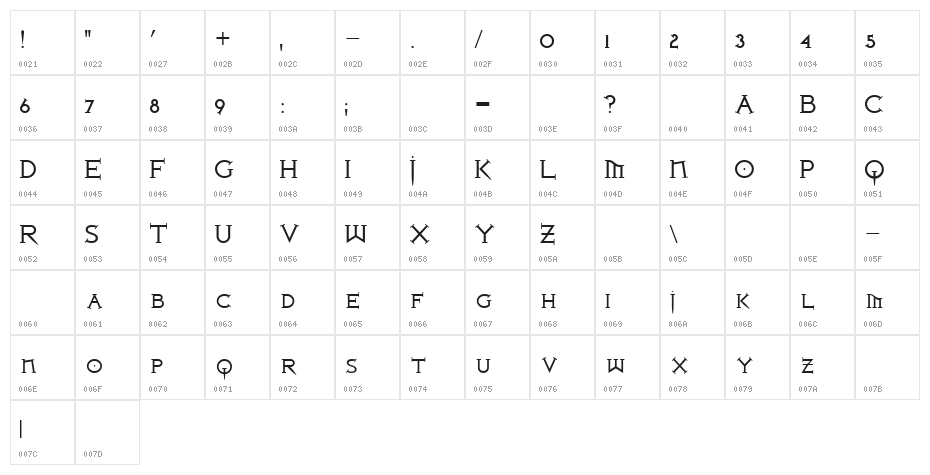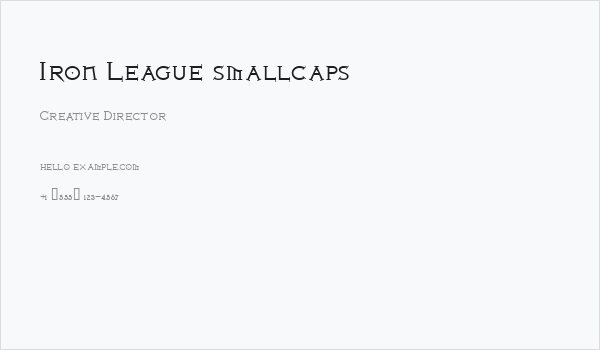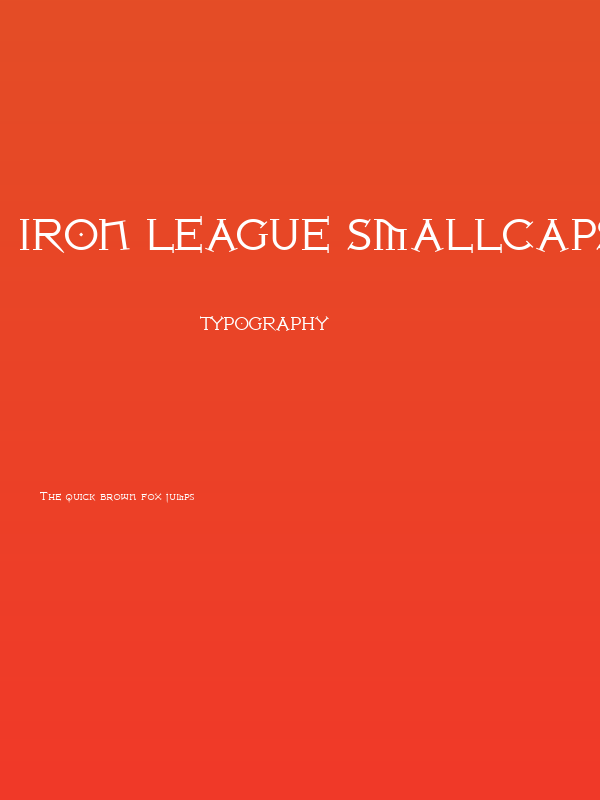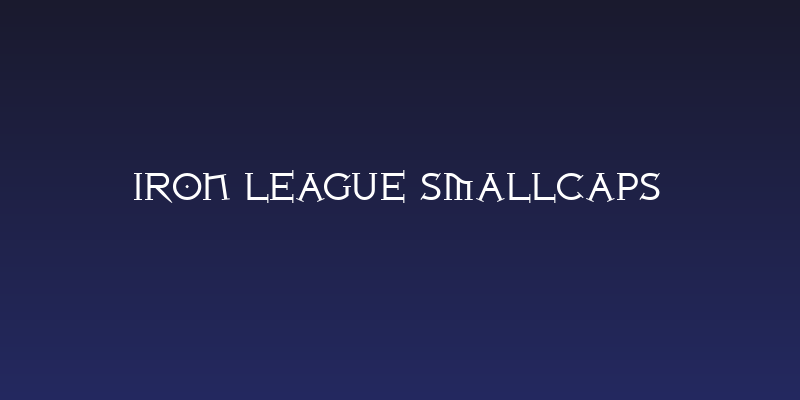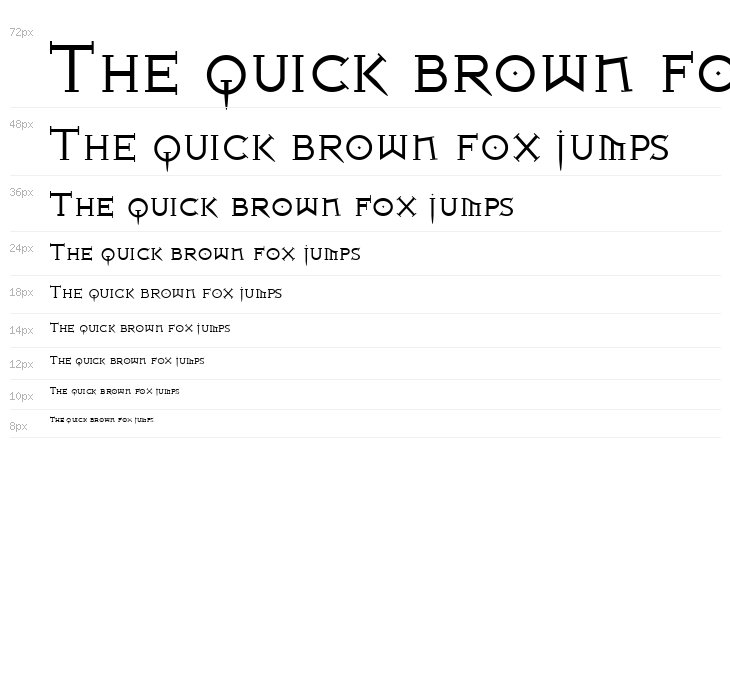
Iron League smallcaps Font
Iron League smallcaps Description
This font features a distinctive, bold design with sharp, angular serifs that give it a strong, authoritative presence. The uppercase letters are particularly striking, with unique embellishments such as spikes and geometric shapes that add a decorative touch. The lowercase letters maintain the same boldness and angularity, ensuring consistency throughout the typeface. Numbers are clear and legible, matching the overall style. Special characters are included, providing versatility for various uses. The font's design is reminiscent of medieval or fantasy themes, making it suitable for projects that require a dramatic and impactful look.
| Proposed Projects | This font is perfect for use in fantasy-themed projects, book covers, movie posters, video game titles, and branding that requires a strong, authoritative presence. |